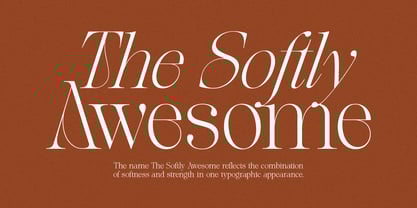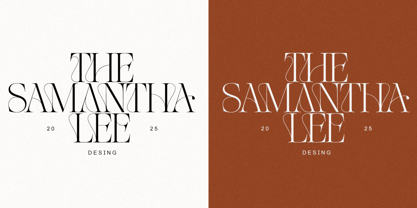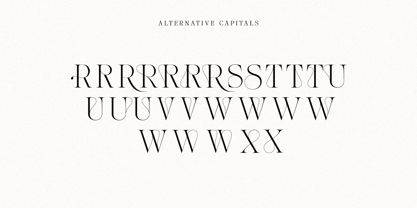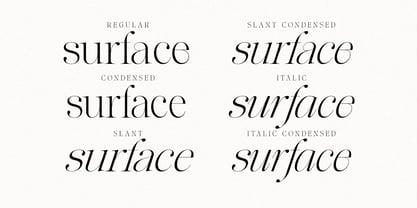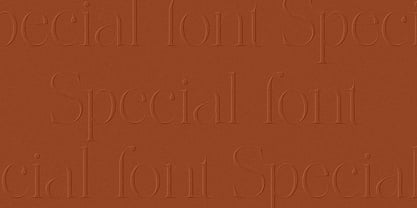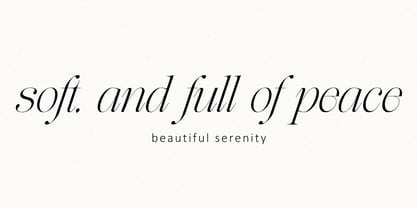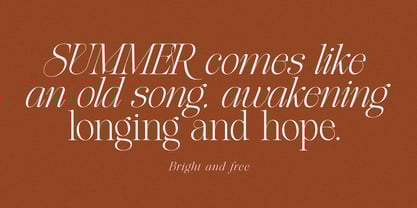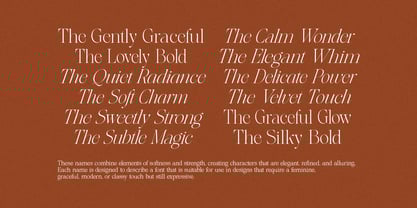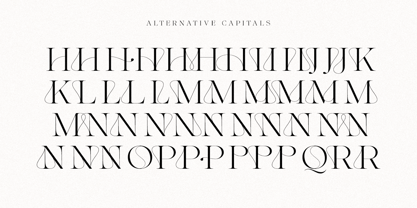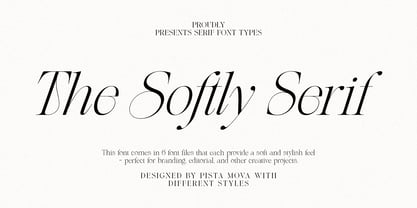
The Softly Serif
by Pista Mova
The The Softly Serif Font Family was designed by Haikal Juanda and published by Pista Mova. The Softly Serif contains 6 styles and family package options. More about this family
Introducing The Softly Serif: A Serif Italic Typeface for a Modern and Elegant Aesthetic.
Experience the charm of timeless scenery with Softly, a carefully crafted serif typeface that blends classic charm with contemporary style. Its high-contrast strokes and graceful curves create a visual symphony that captivates the eye and enhances any design. Whether you’re creating a sophisticated editorial layout, a striking brand identity, or an engaging website, the subtle swoosh and beauty of Softly Serif will make your work elegant and stand out.
Immerse yourself in the world of Softly Serif, where each character has been carefully designed to exude strength and refinement. From its carefully sculpted serifs to its perfectly balanced proportions, this typeface is a testament to the timeless power of classic typography. Its true italics, with their unique personality, add a touch of dynamic movement and visual interest, allowing you to create designs that are both eye-catching and easy to read.
Key Features:
• Effortless Elegance The Softly Serif clean lines and balanced proportions exude classic charm, making it ideal for a variety of applications.
• Elegant Alternatives with Add a touch of personality with a curated collection of Alternatives, creating unique and eye-catching letter combinations.
• OpenType Features Take full control of your typography with advanced OpenType features, including ligatures.
• True Italics This isn’t just an italic version—it’s carefully designed to align with uprights, creating a cohesive and elegant rhythm.
Perfect for:
• Editorial Design: Magazines, newspapers, books – The Softly Serif readability and occasion appeal make it perfect for long-form text.
• Branding & Logos: Create a sophisticated and memorable brand identity with the timeless appeal of The Softly Serif.
• Web Design: The Softly Serif clean lines and high contrast ensure optimal readability on screens of all sizes.
• Packaging & Print: Enhance your product packaging and printed materials with a touch of refined luxury.
• Invitations & Stationery: Make a lasting impression with The Softly Serif elegant presence on invitations, greeting cards, and other stationery.
Designers: Haikal Juanda
Foundry: Pista Mova